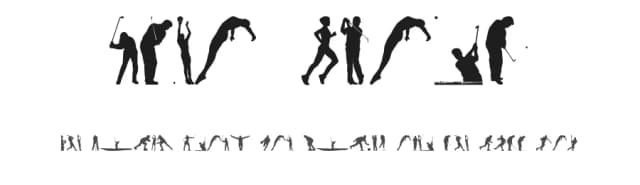
About 4YeoSummer Font
4YeoSummer is a dingbat font designed by 4 Yeo. It includes 31 glyphs, a regular weight, and TTF (TrueType) format. 4YeoSummer is free to download; check the license details on this page before commercial use. Dingbat fonts like 4YeoSummer work best for icons, ornaments, bullet points, and decorative accents.
4YeoSummer Font is a versatile dingbats font that works for both headings and body text. Pair it with a contrasting sans-serif or serif font to add visual interest and a clear distinction between titles and body copy.
4YeoSummer Font
by 4 Yeo
4YeoSummer Font is a dingbats typeface by 4 Yeo, ideal for logos, invitations, branding, and creative projects.